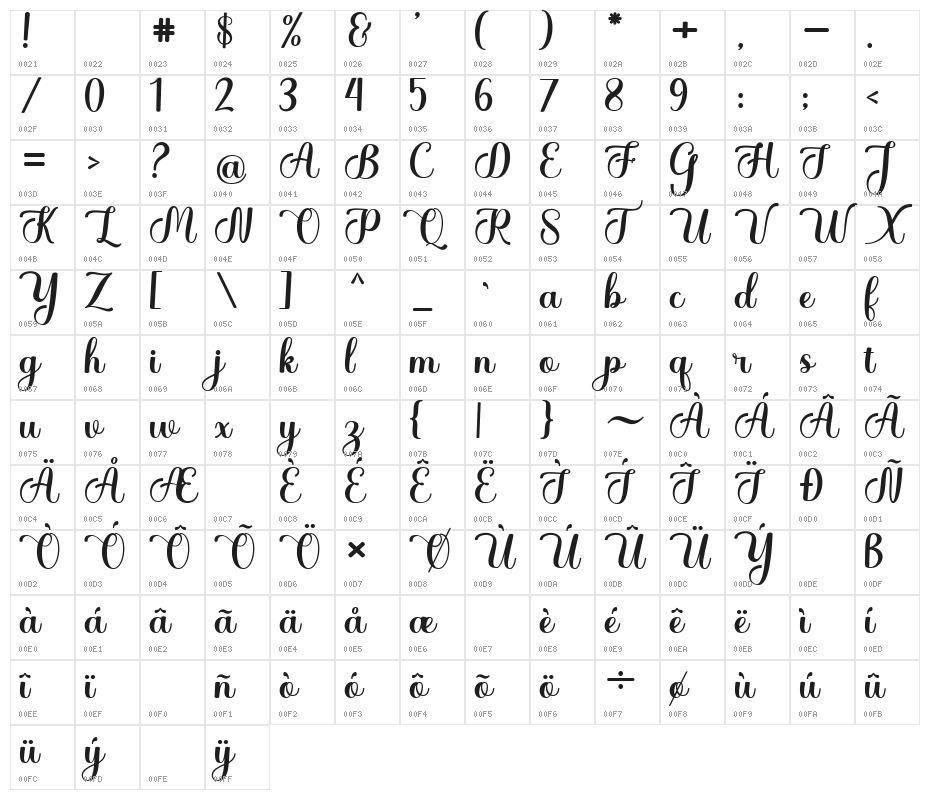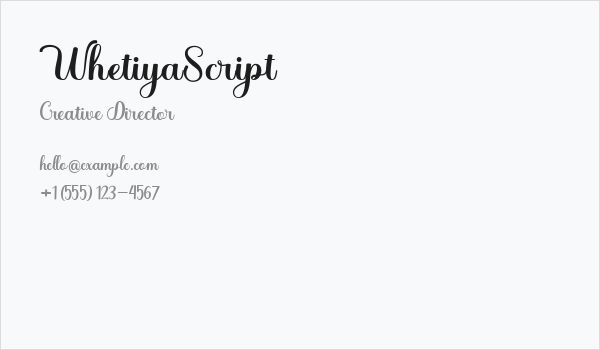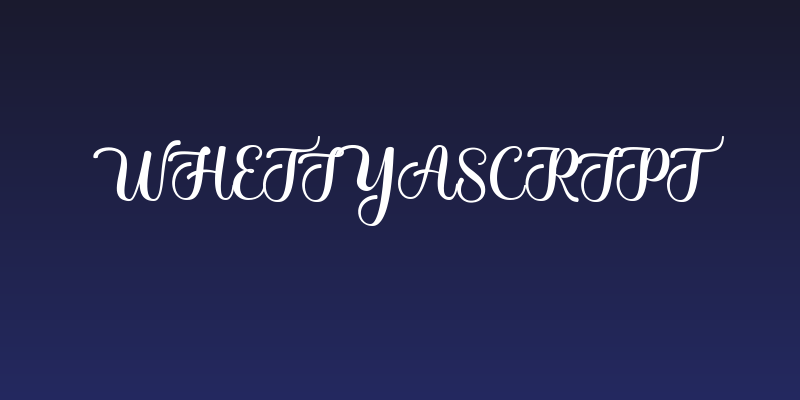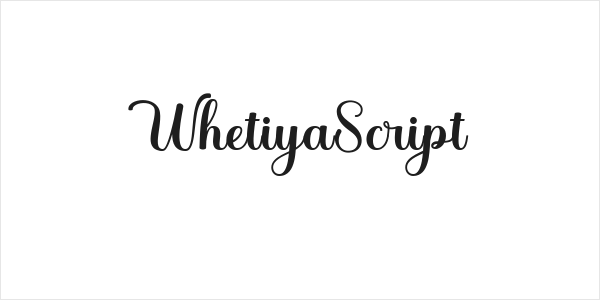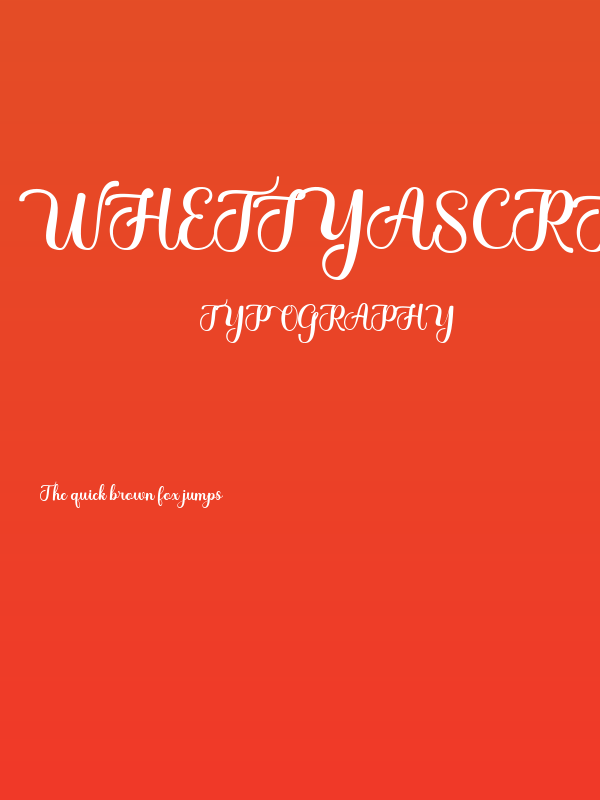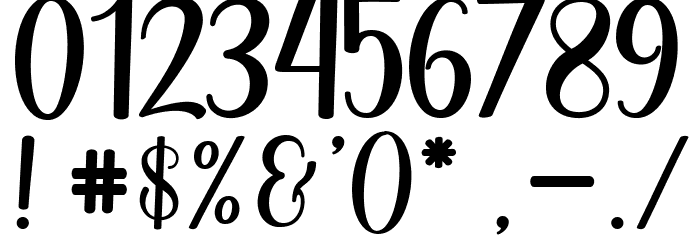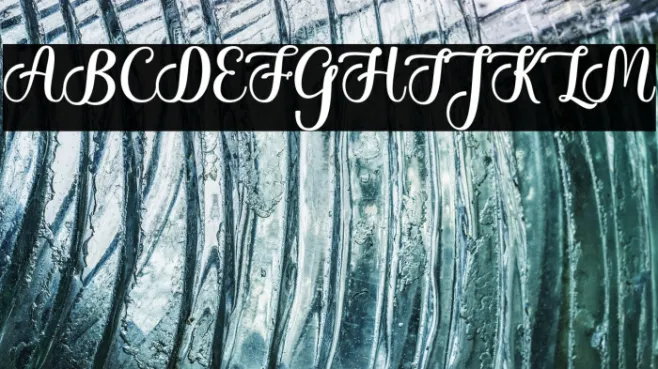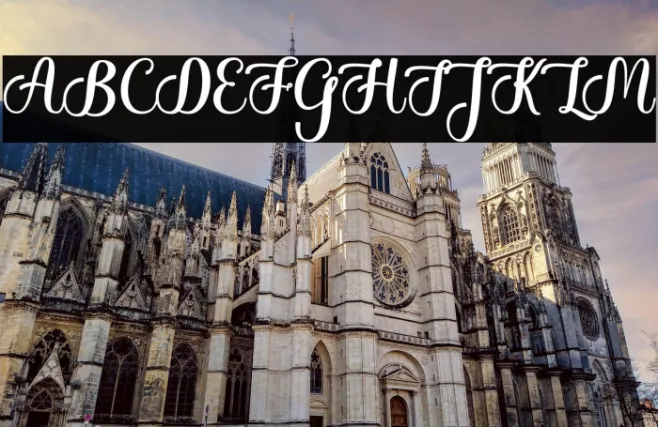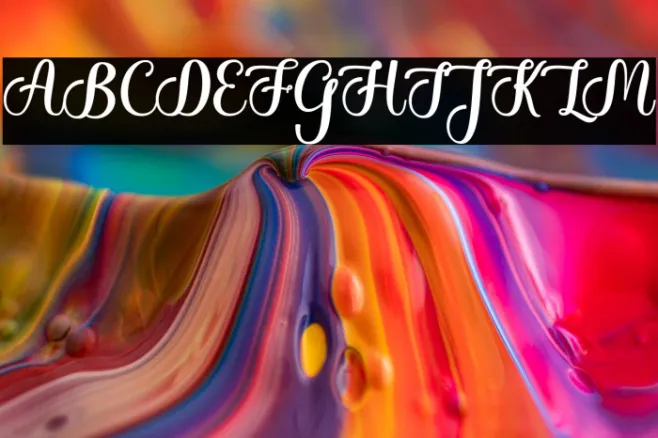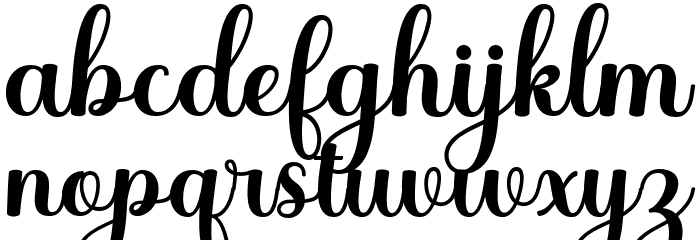
WhetiyaScript Font
WhetiyaScript Description
This elegant script font features a flowing, cursive style with smooth, connected strokes that give it a graceful and sophisticated appearance. The uppercase letters are slightly more ornate, with loops and swirls that add a touch of flair, while the lowercase letters maintain a consistent flow, making it easy to read. The numerals are bold and clear, complementing the overall style of the font. Special characters are designed with the same attention to detail, ensuring a cohesive look across all elements. This font is perfect for projects that require a touch of elegance and sophistication.